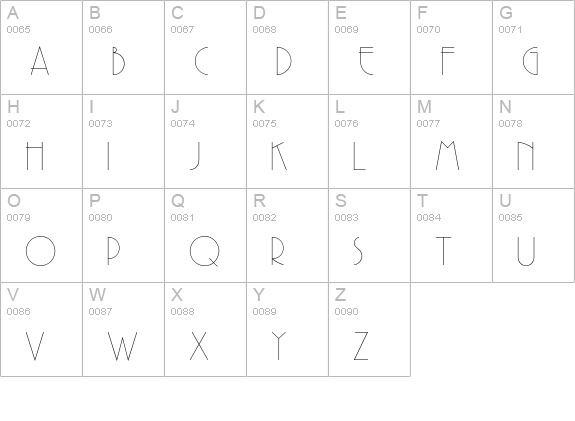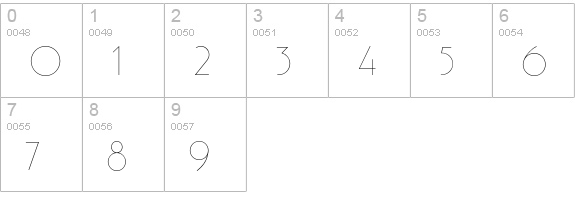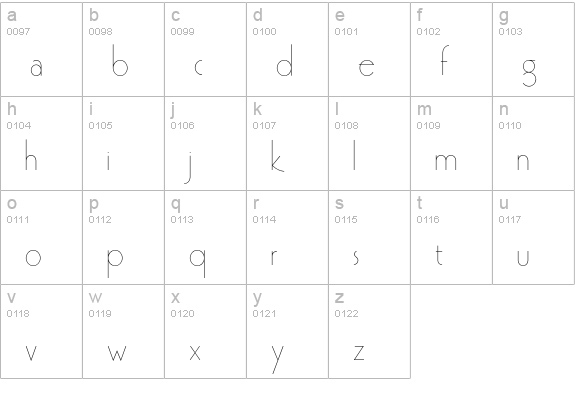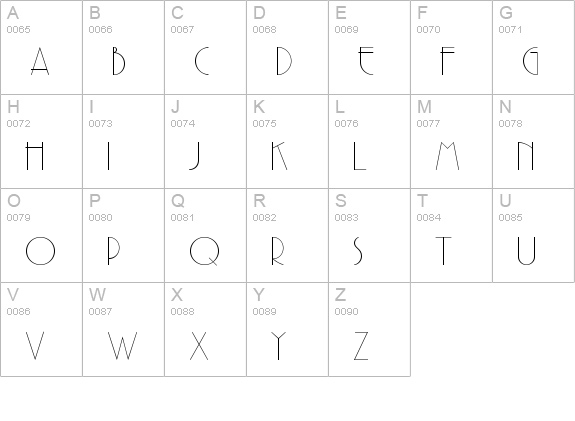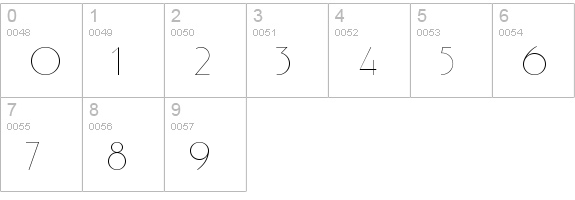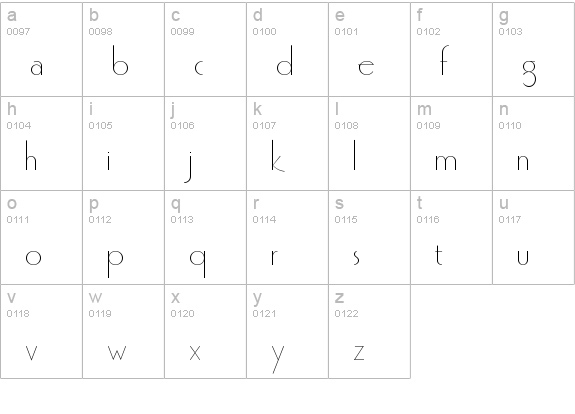
Premium Thin is a delicate, low-contrast variant in the Premium typeface family \xE2\x80\x94 well suited to fashion editorial, minimal branding, and high-contrast display.
Introducing Premium Thin font, a sleek and sophisticated typeface perfect for adding a touch of elegance to your designs. This premium font features delicate lines and a modern aesthetic that exudes a sense of style and refinement. With its clean and minimalistic design, Premium Thin font is versatile and well-suited for a variety of design projects, from branding to editorial design. What's more, Premium Thin font is available for free download at FontsMarket.com. This means you can easily access this high-quality font without any cost, making it a valuable addition to your font collection. Don't miss out on the opportunity to elevate your designs with the timeless beauty of Premium Thin font. Download it now and bring a touch of sophistication to your projects!